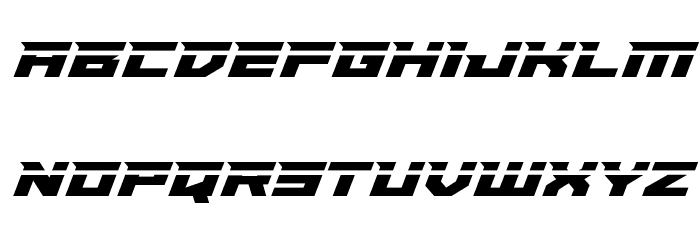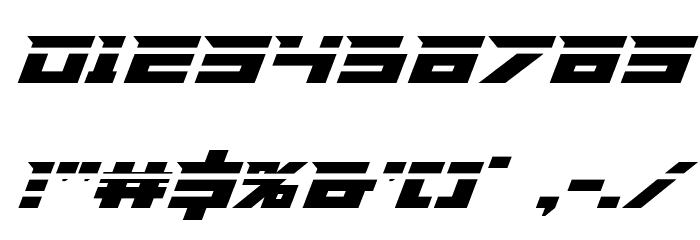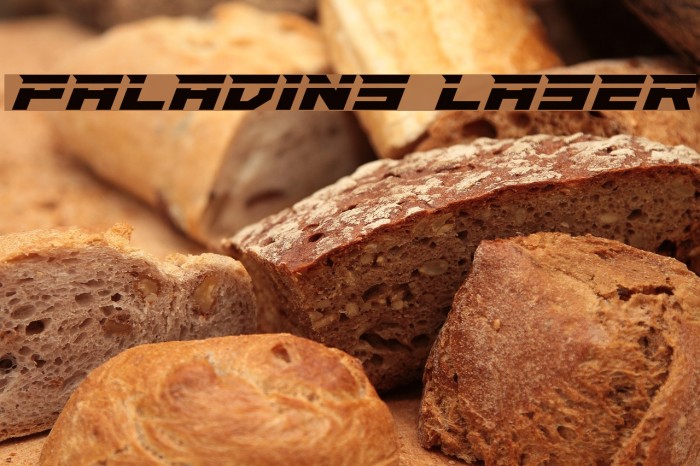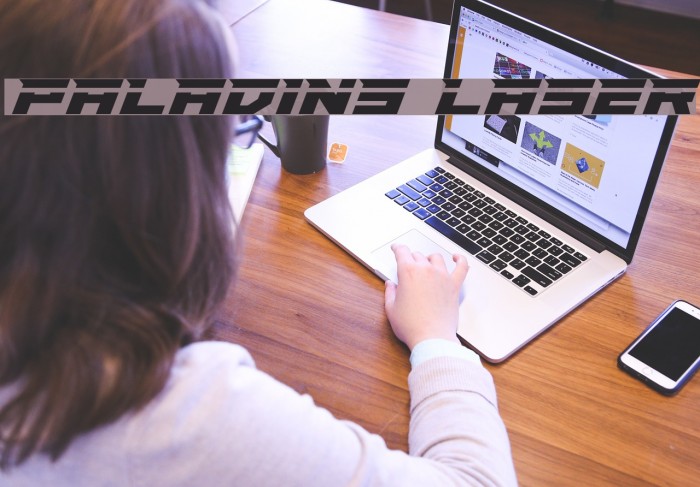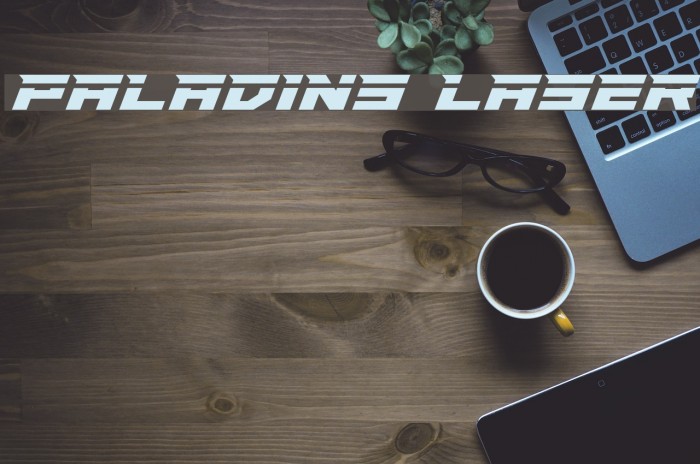
Paladins Laser Font
This font features a futuristic and angular design, characterized by sharp edges and a bold presence. The letters are constructed with a consistent geometric style, giving them a dynamic and energetic appearance. The uppercase and lowercase letters maintain a uniformity that enhances readability while still offering a unique aesthetic. The numbers and special characters follow the same design principles, ensuring a cohesive look across all glyphs. This font is ideal for projects that require a modern and tech-inspired feel, such as video game titles, sci-fi movie posters, or technology brand logos.
A futuristic, angular font with a bold, geometric style.
- Proposed Projects: Ideal for video game titles, sci-fi movie posters, and technology brand logos.